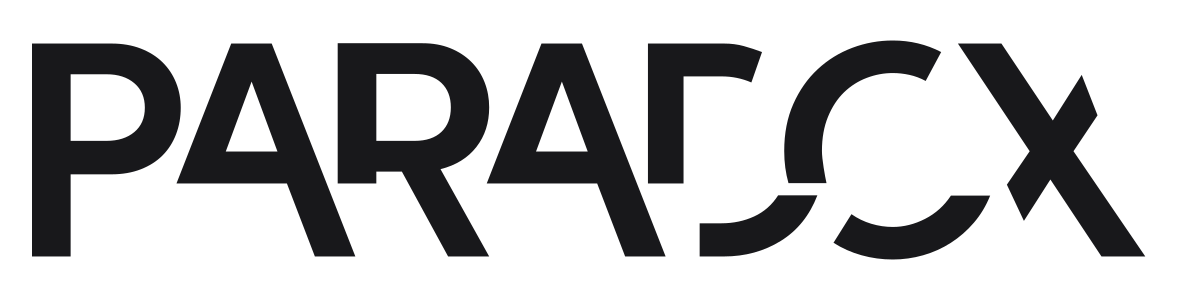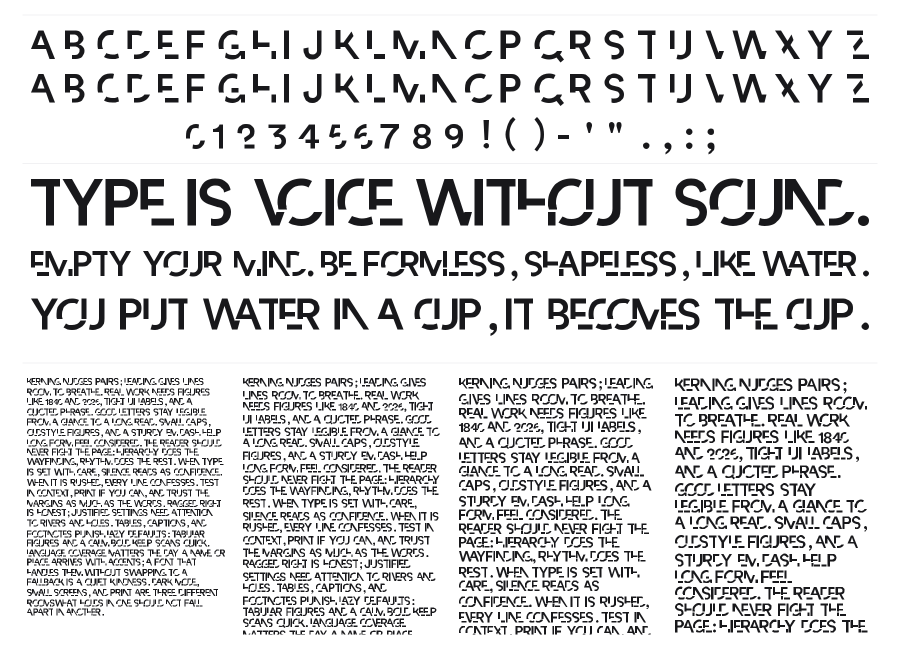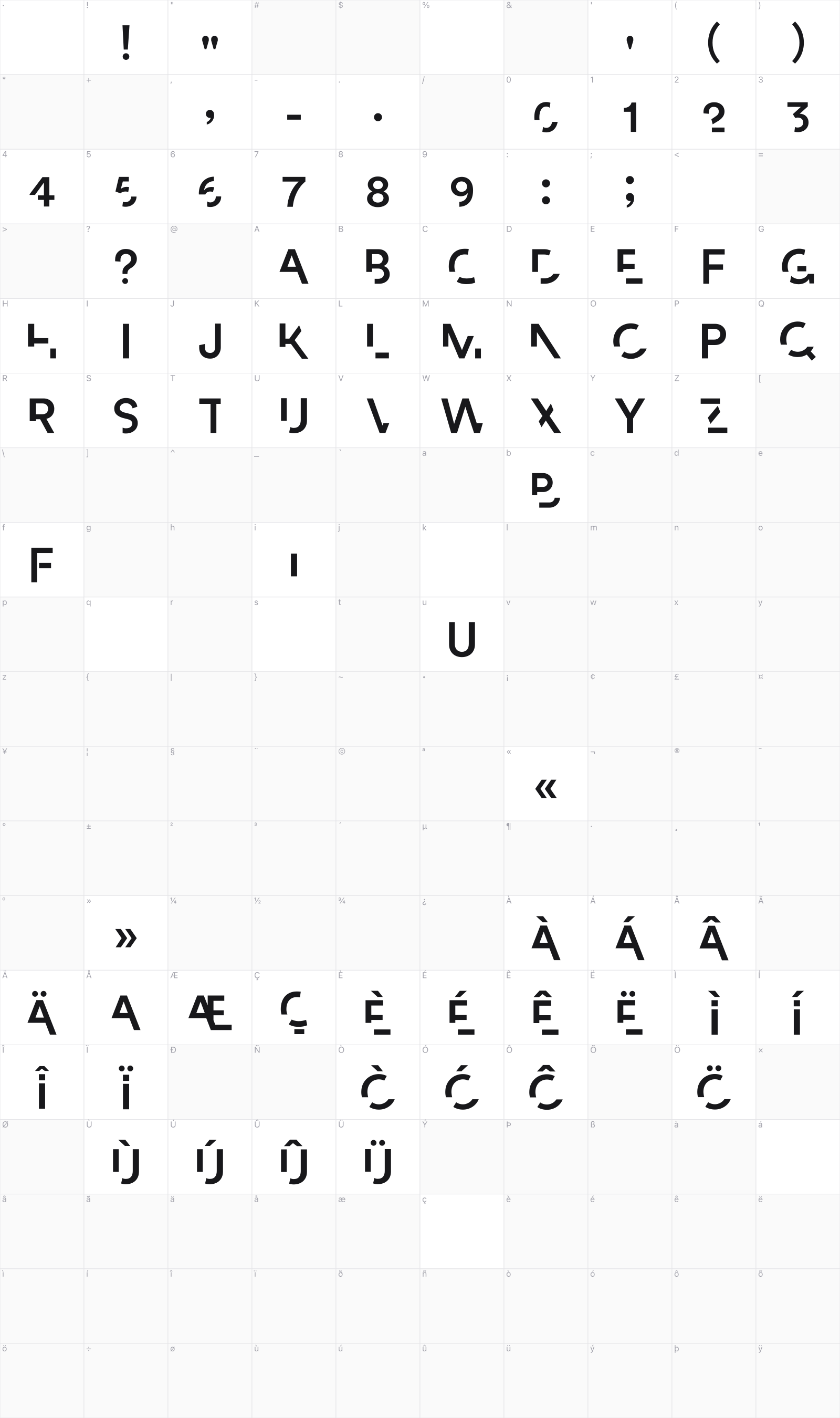
Paradox
by Nicolas Gavrilenko
Paradox is a bold geometric display font built around a stencil-cut concept where horizontal and diagonal slices interrupt each character mid-stroke. The fragmentation is systematic enough to stay legible at large sizes while giving every word a raw, deconstructed tension. It suits headline work where visual impact matters more than quiet refinement.